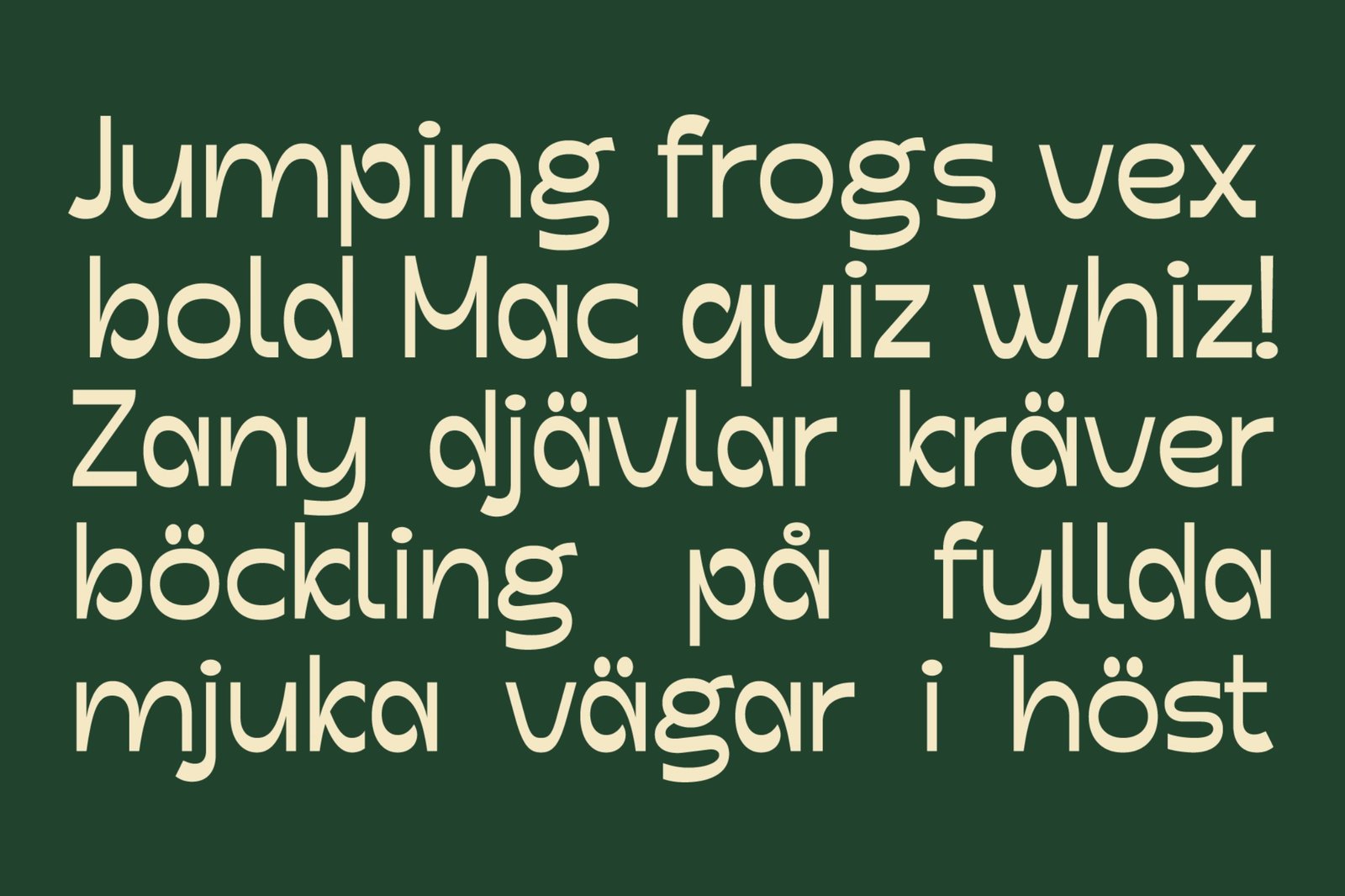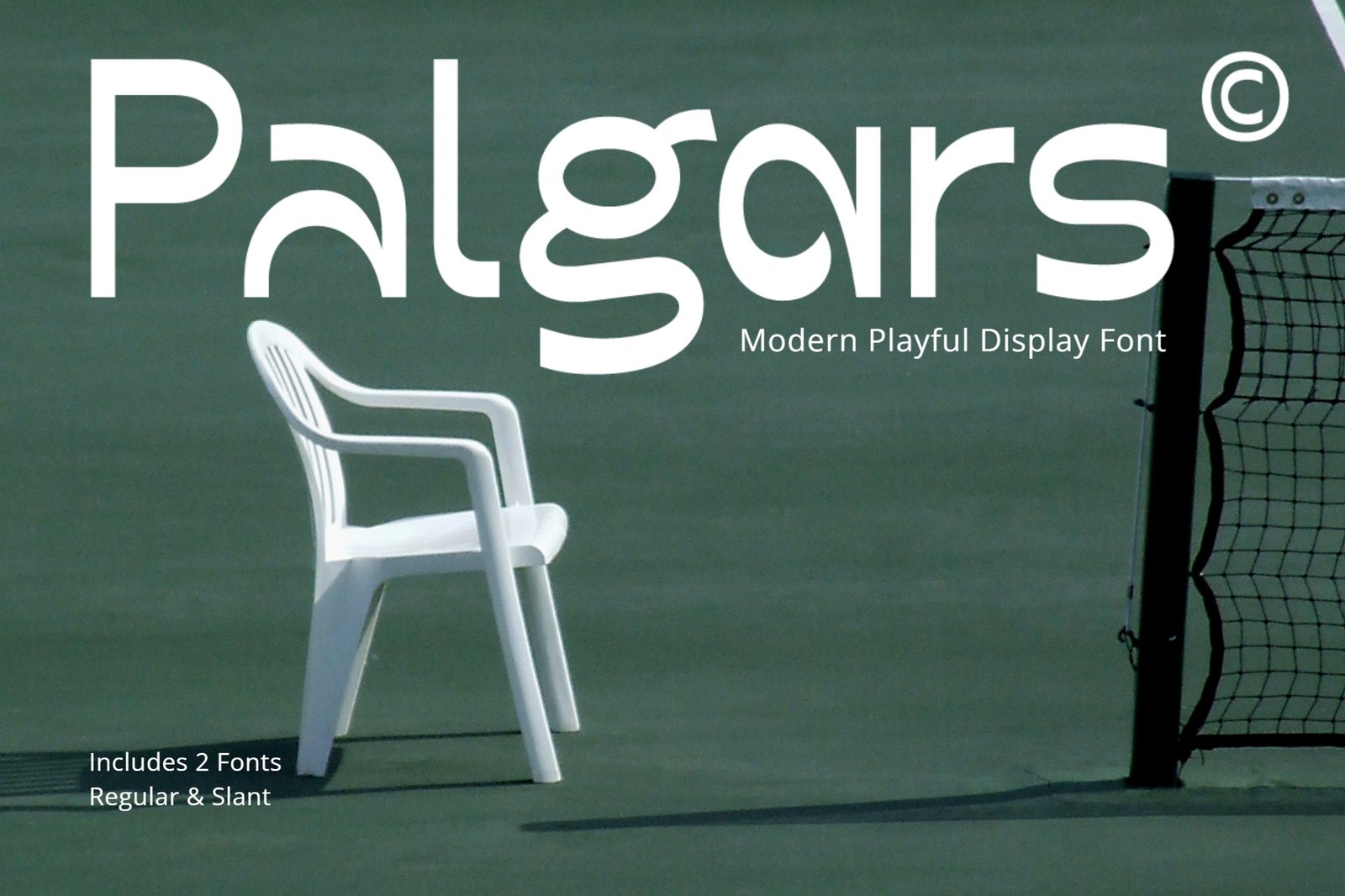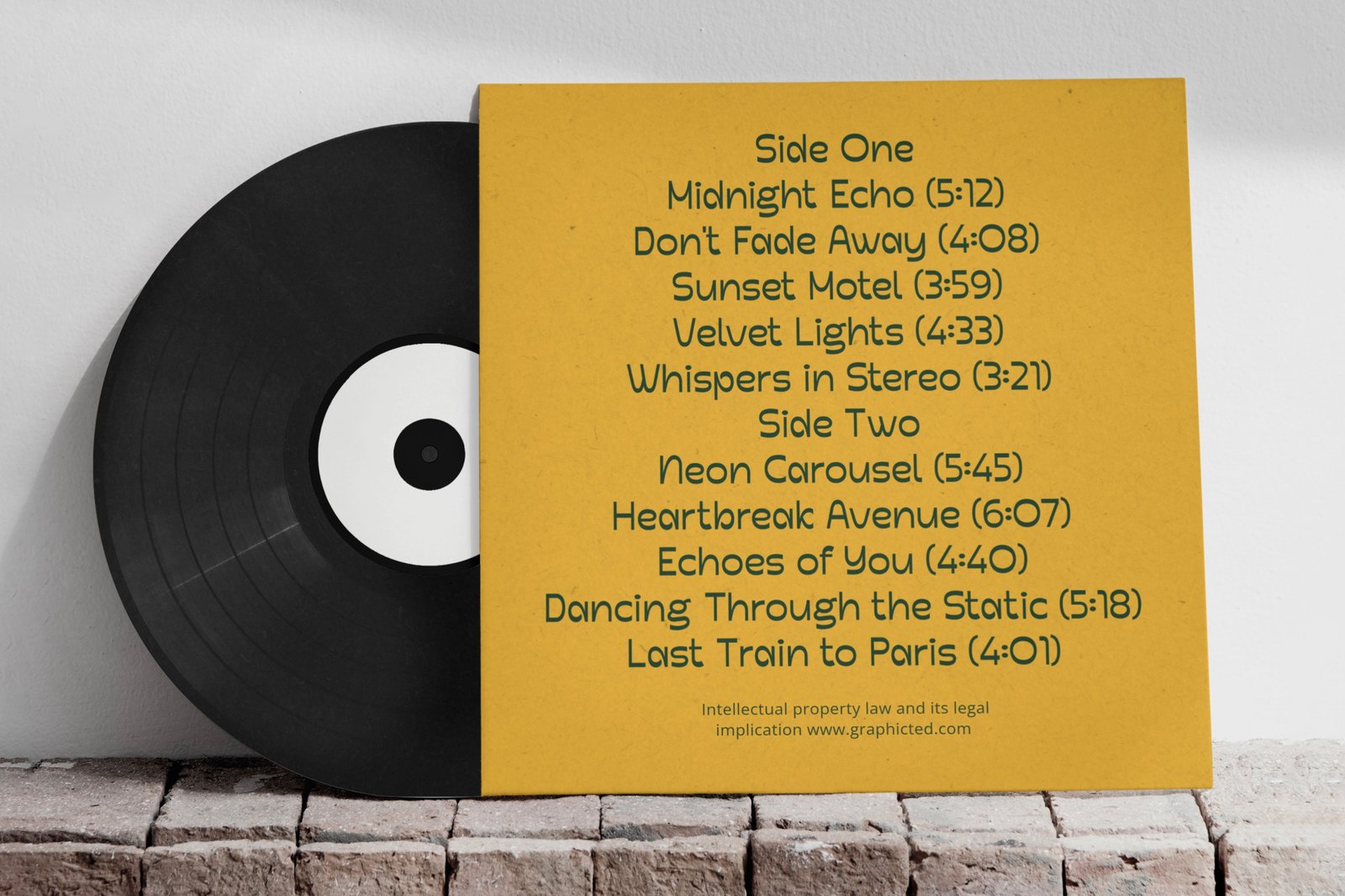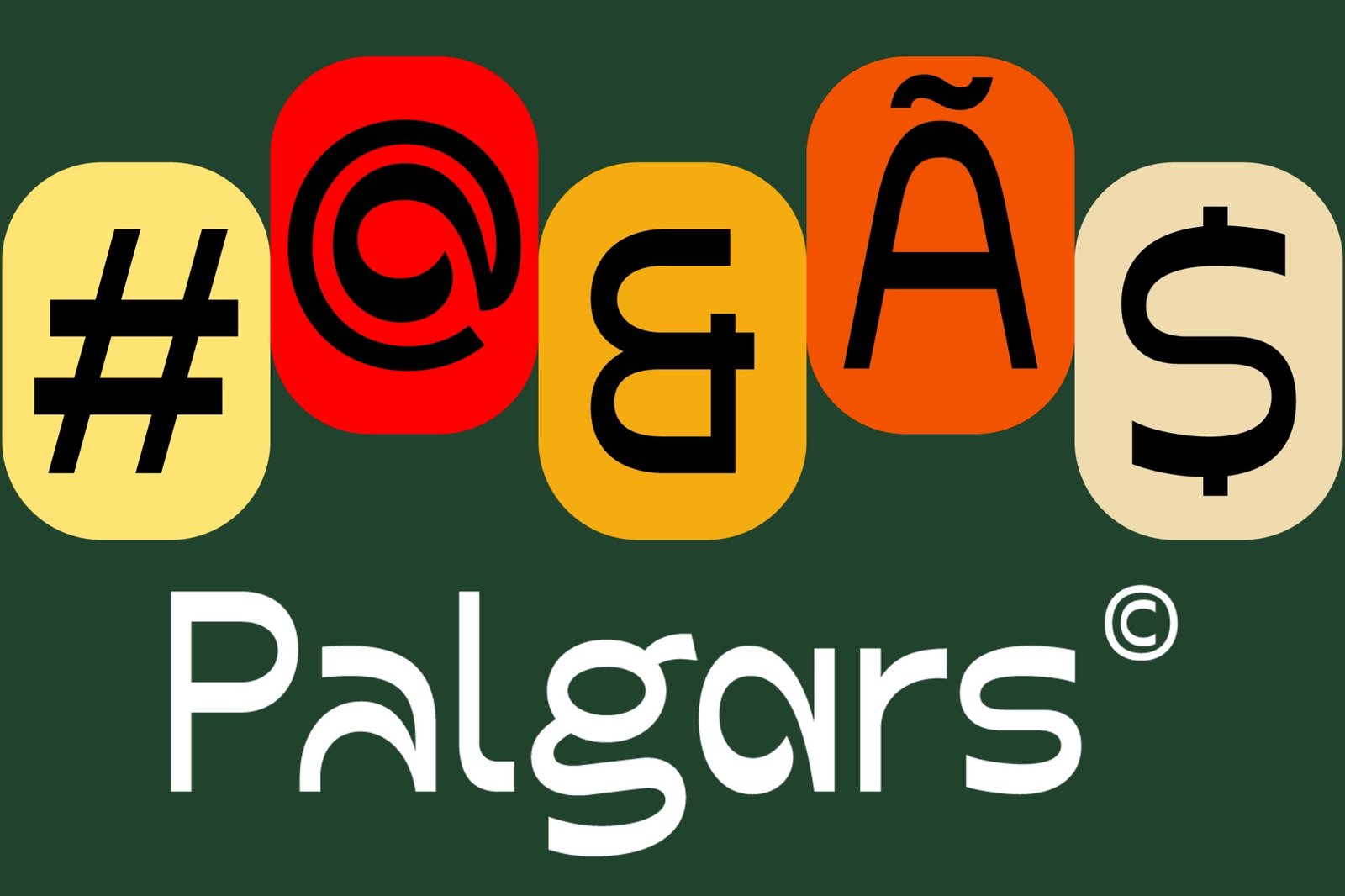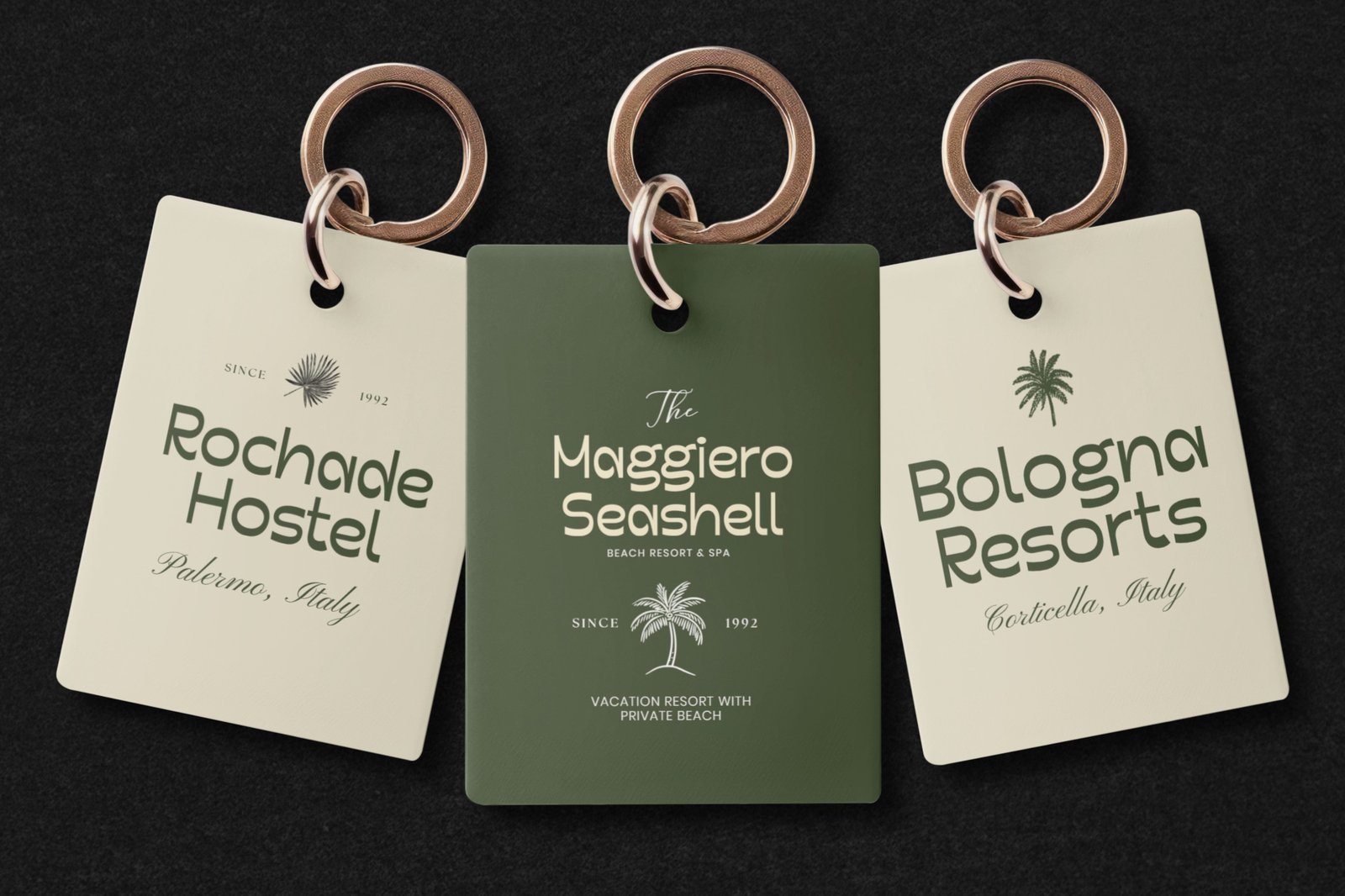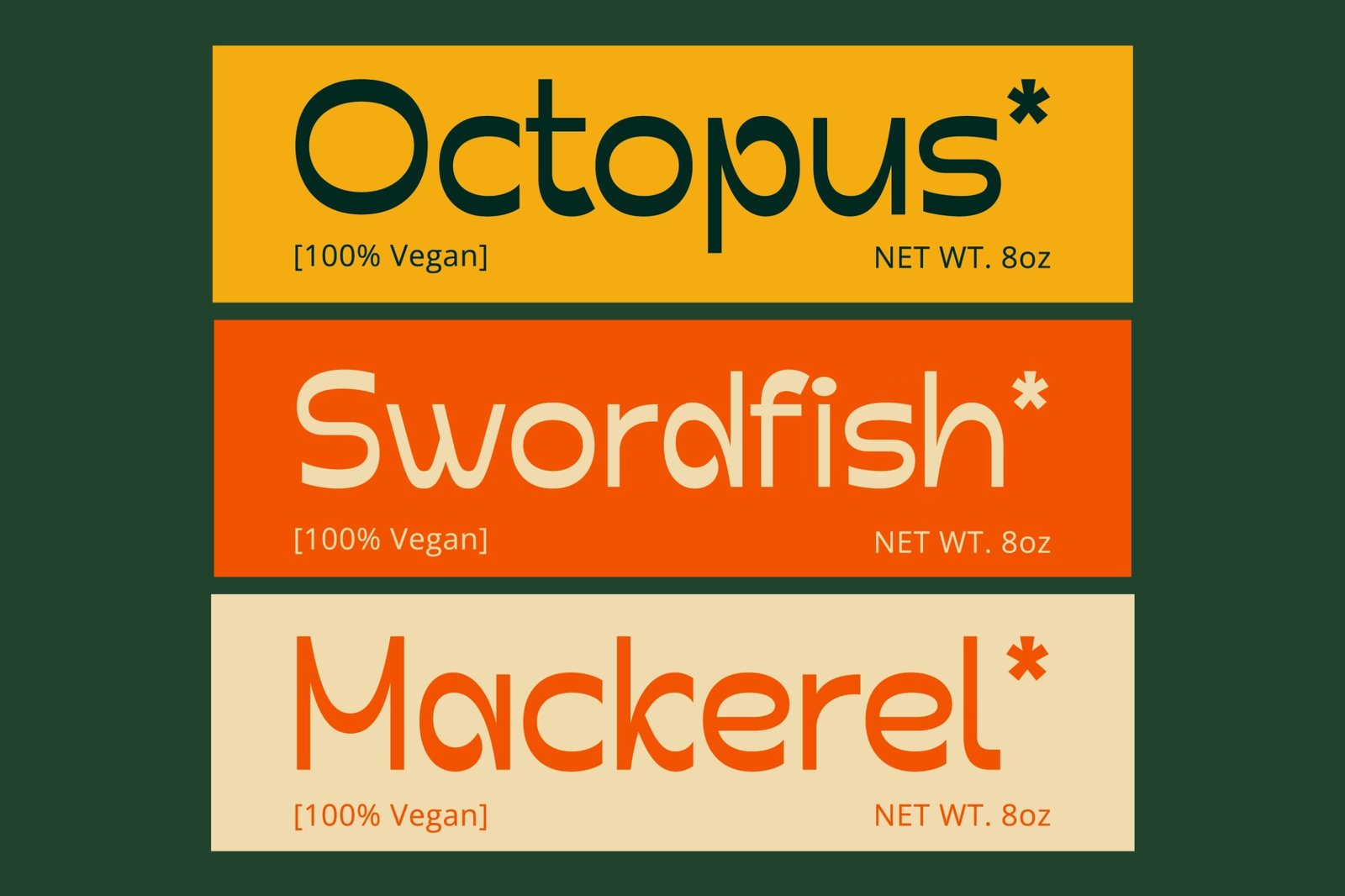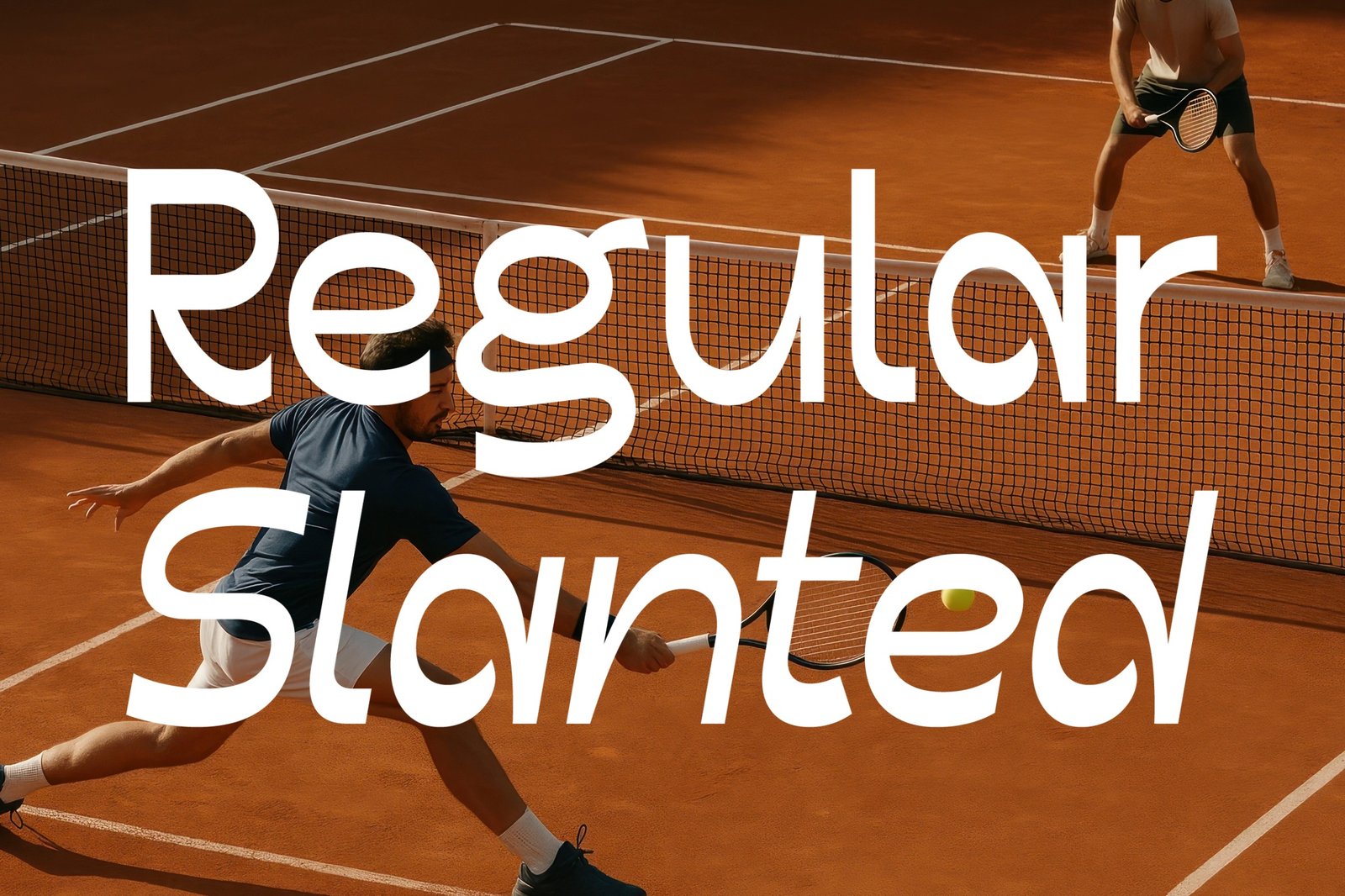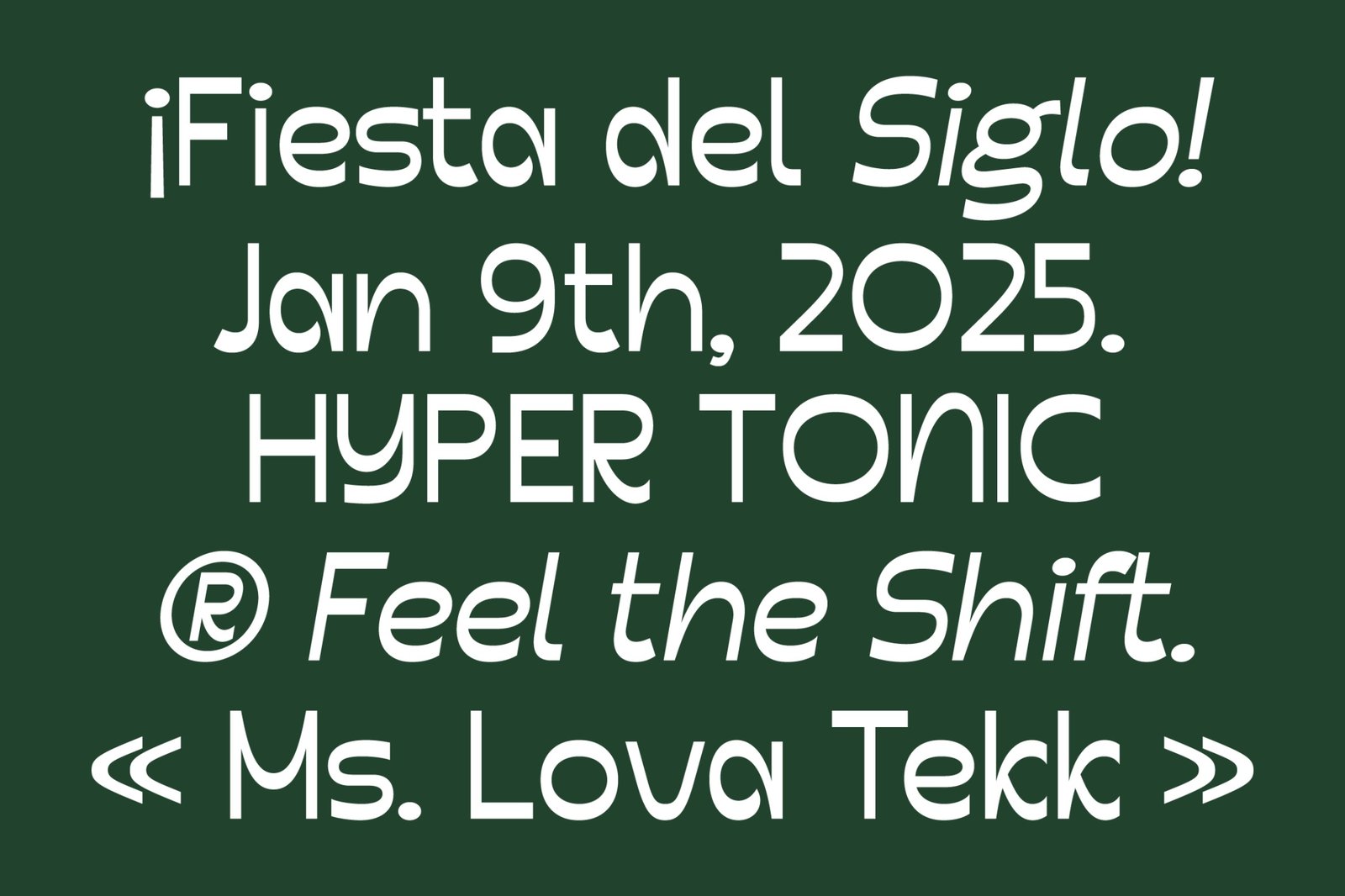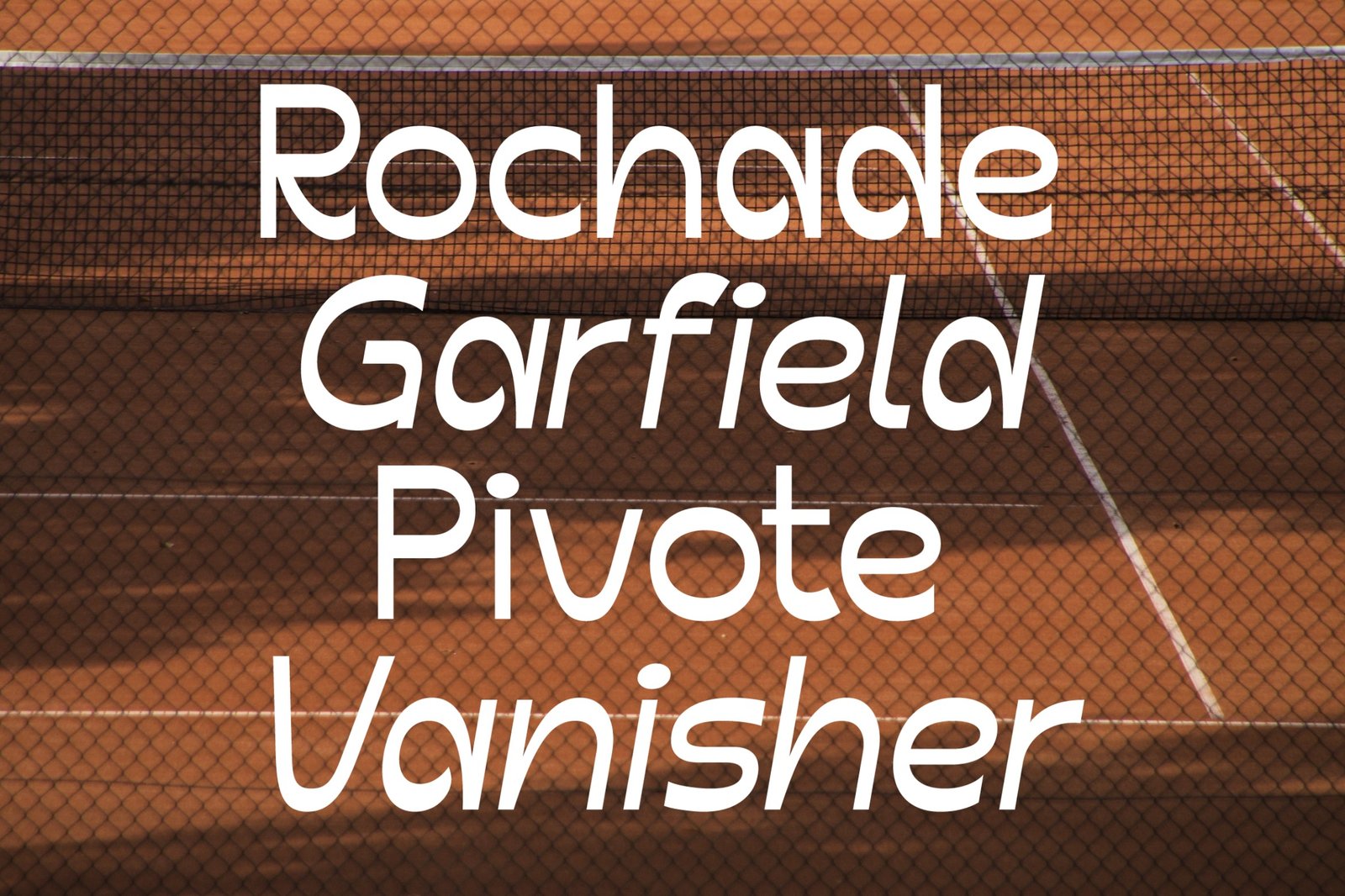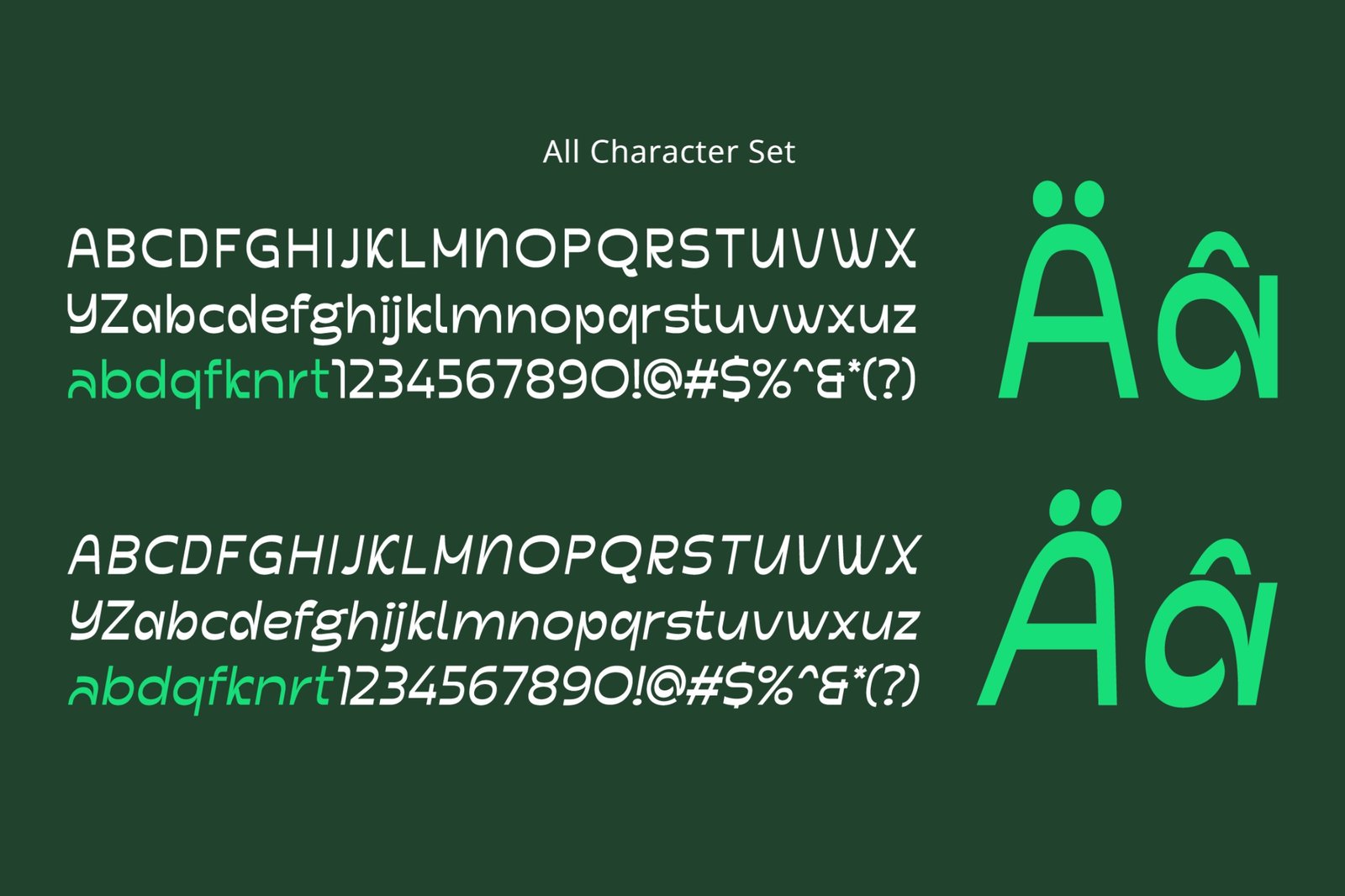
Palgars Font
Meet Palgars: The Font That Blends Modern with Playful
Tired of boring, generic fonts? Give your designs a voice that stands out!
Introducing Palgars, a modern and playful display font designed to inject personality and charm into your projects. Palgars is built on a clean sans-serif foundation, making it incredibly versatile, but it breaks the mold with its unique, flowing letterforms that are full of character. The quirky curves and friendly feel make it instantly memorable and approachable.
Whether you're crafting a new logo, designing eye-catching headlines, or creating stunning social media posts, Palgars is your perfect partner. Its clean yet distinctive style makes it ideal for branding, packaging, posters, and so much more.
Palgars Regular: The solid, go-to style for a bold statement.
Palgars Slant: An energetic, oblique version for added emphasis and dynamism.
Includes uppercase, lowercase, numbers, punctuation, and multilingual support.